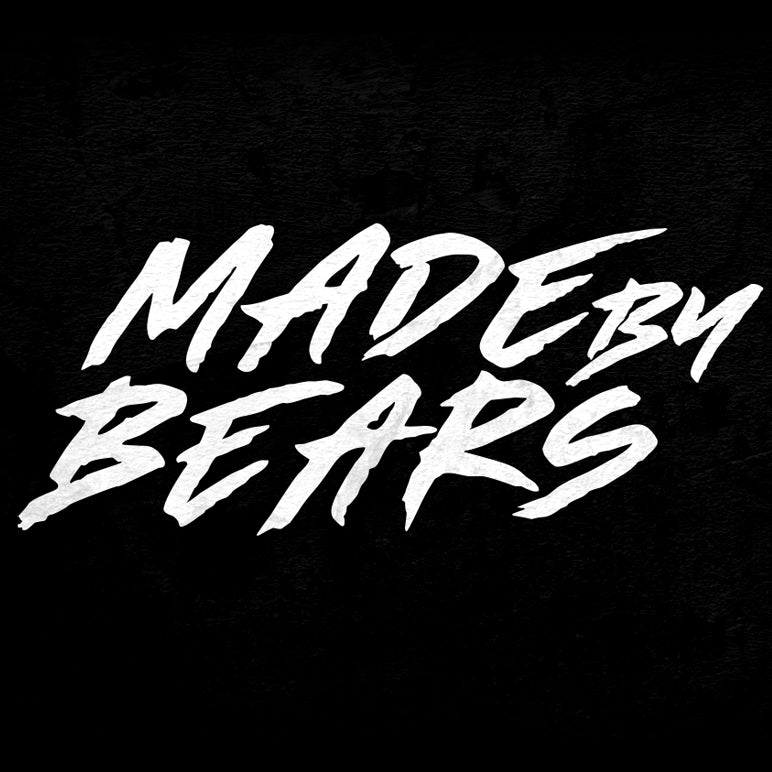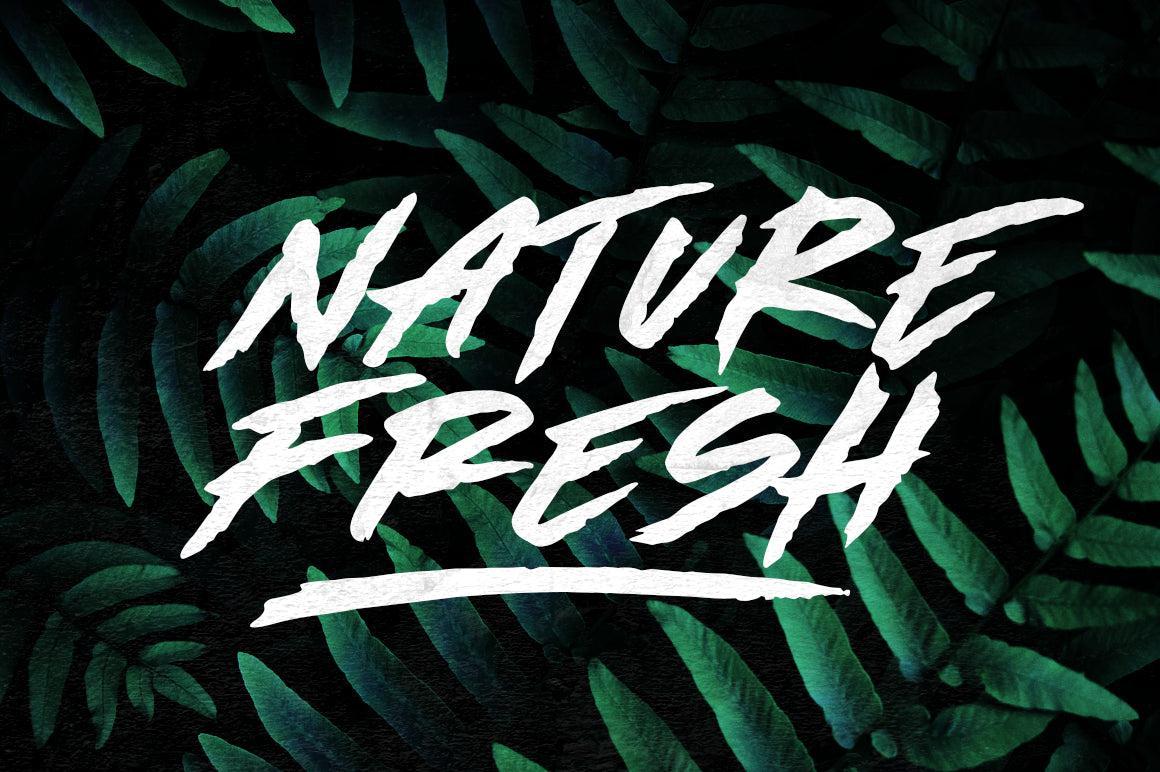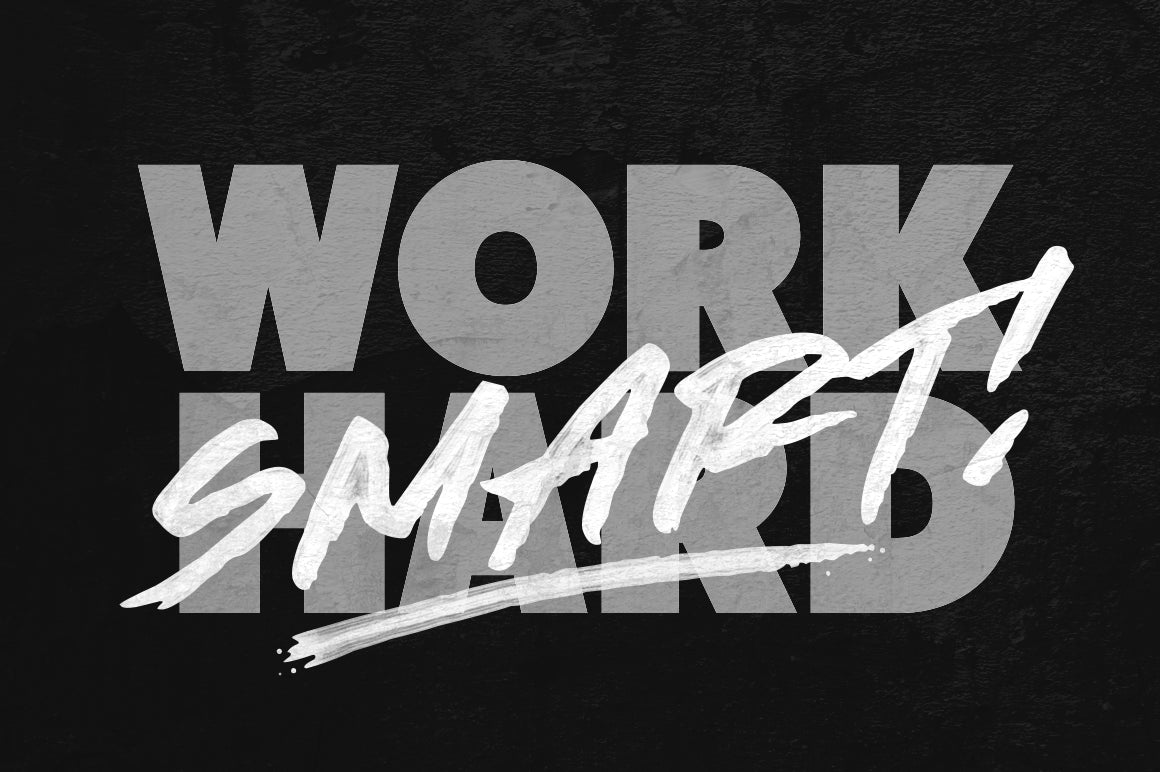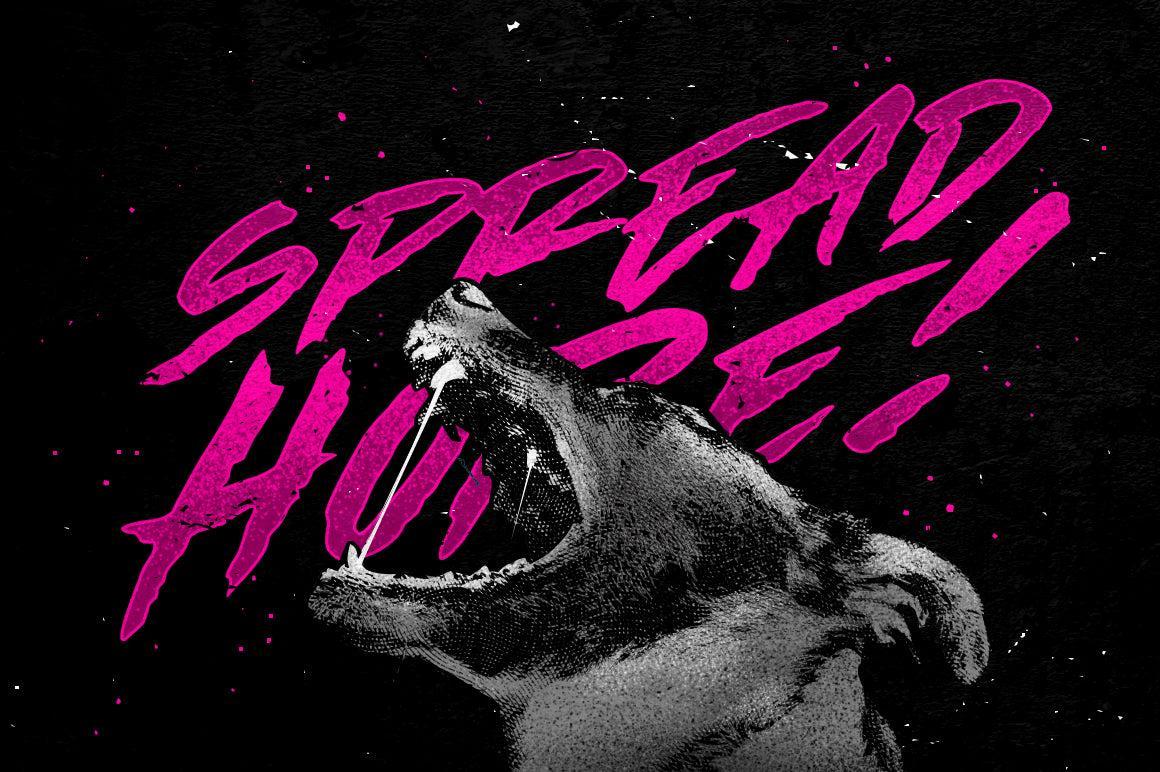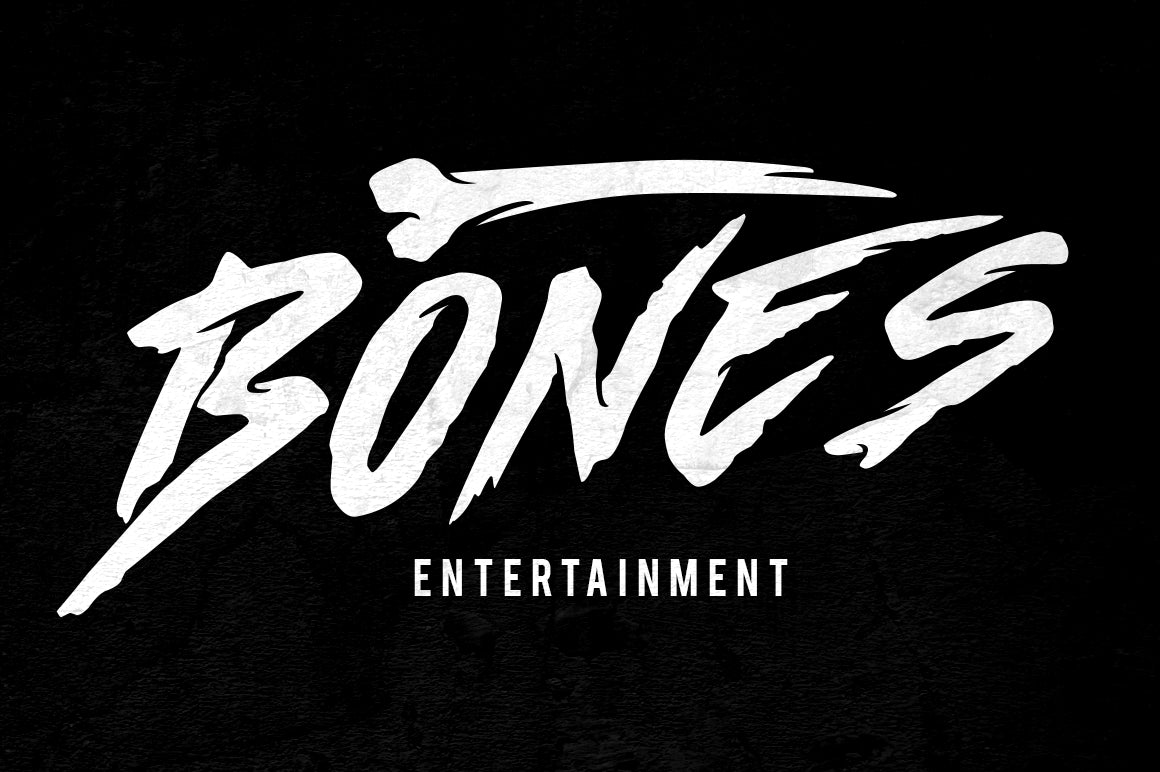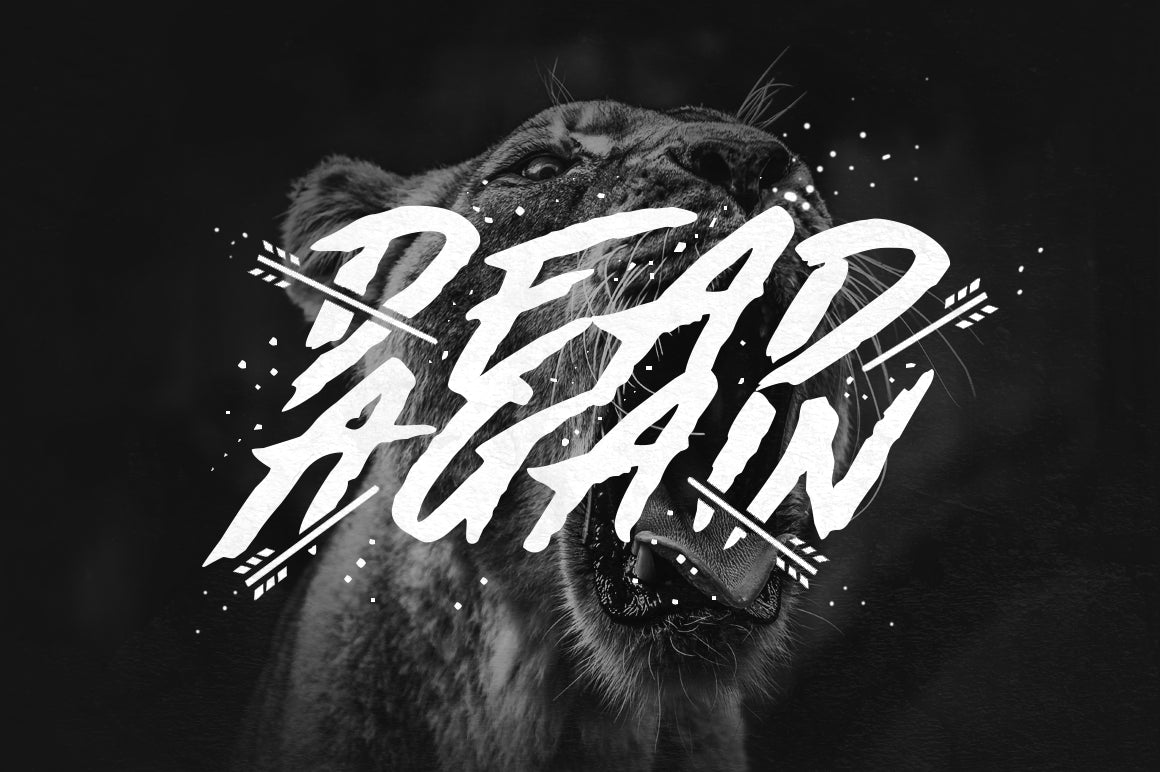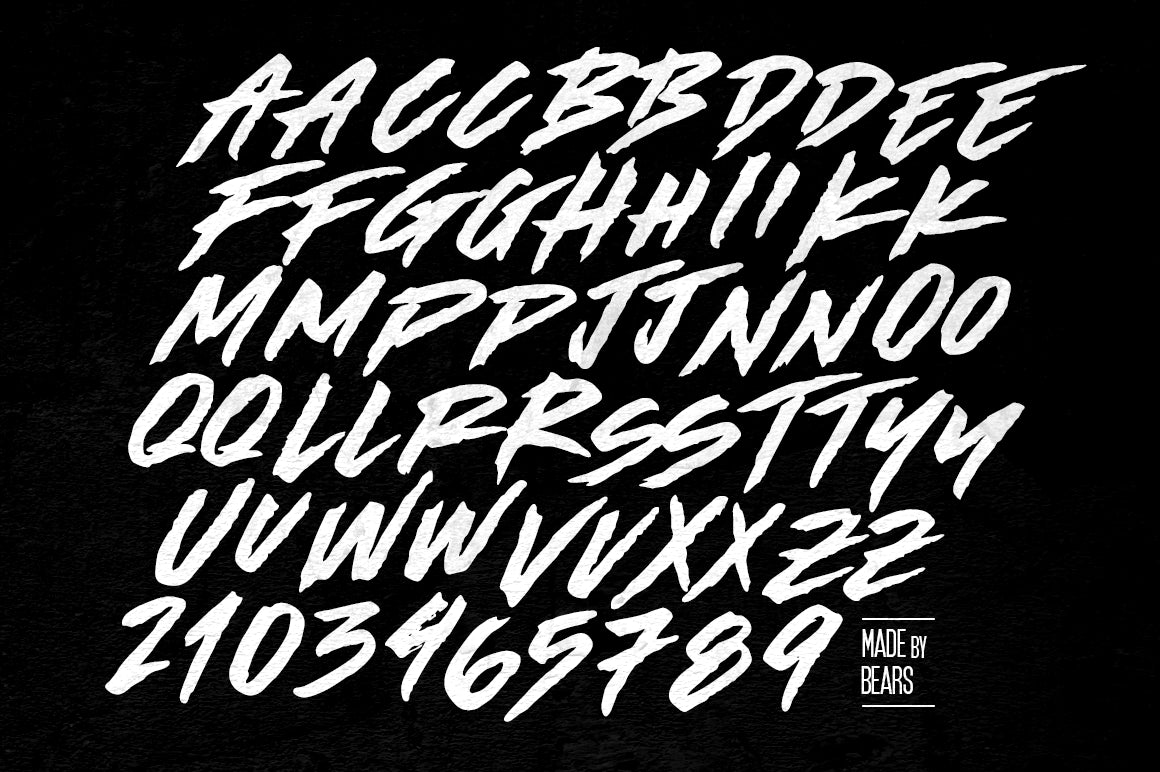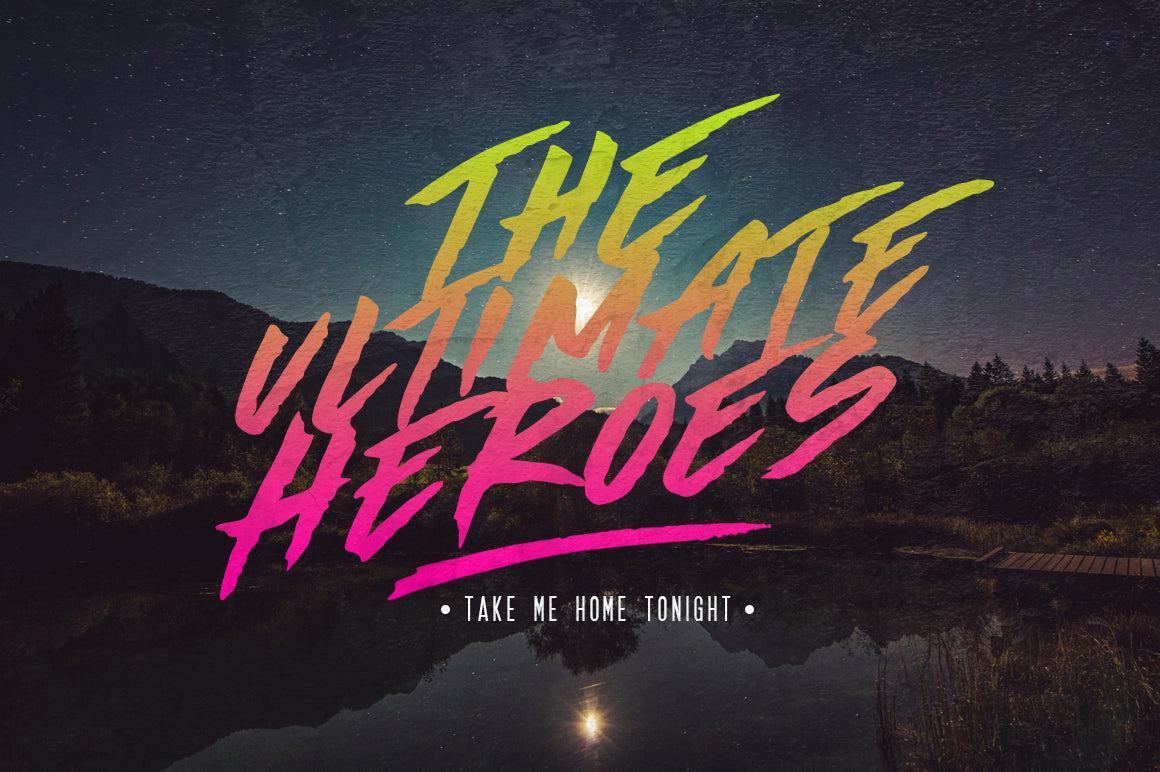
Made by Bears - Font
Branding must come with an attitude. Whether promoting your band or making activist posters online, treat your art like it will gonna bite something. Our new creation Made by Bears will hunt every latent designs and equip it with all the spikes it needed!
Made by Bears is a bold font designed for impactful branding, featuring both regular and slant styles in OTF and TTF formats. It includes uppercase letters, numerals, and punctuation, making it suitable for a variety of design projects.